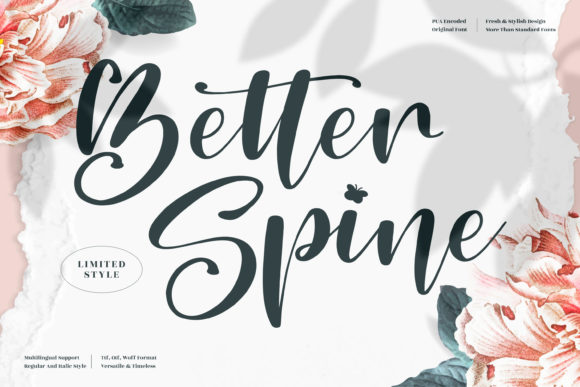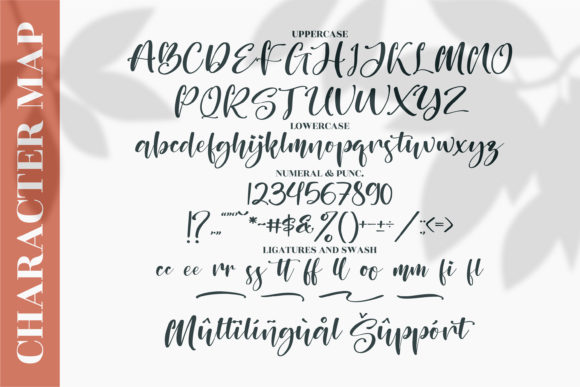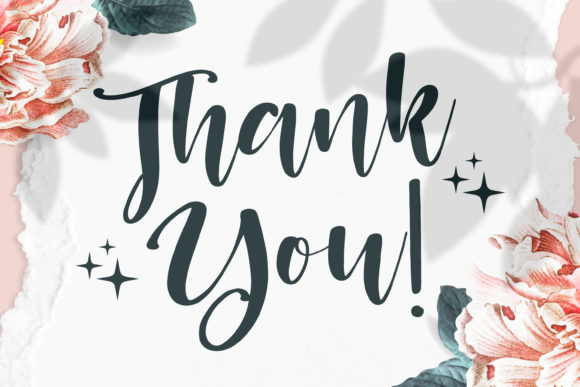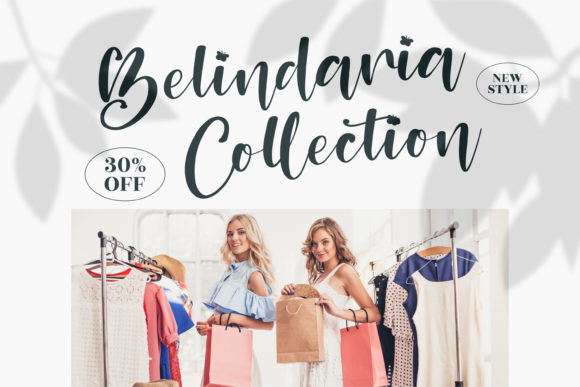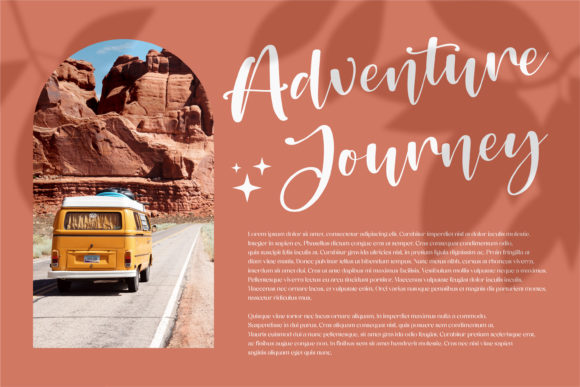
Better Spine Font
About Better Spine Font
Better Spine is a beautiful script font. Fall for its ravishing style and use it to create gorgeous wedding invitations, beautiful stationary art, eye-catching social media posts, and much more!